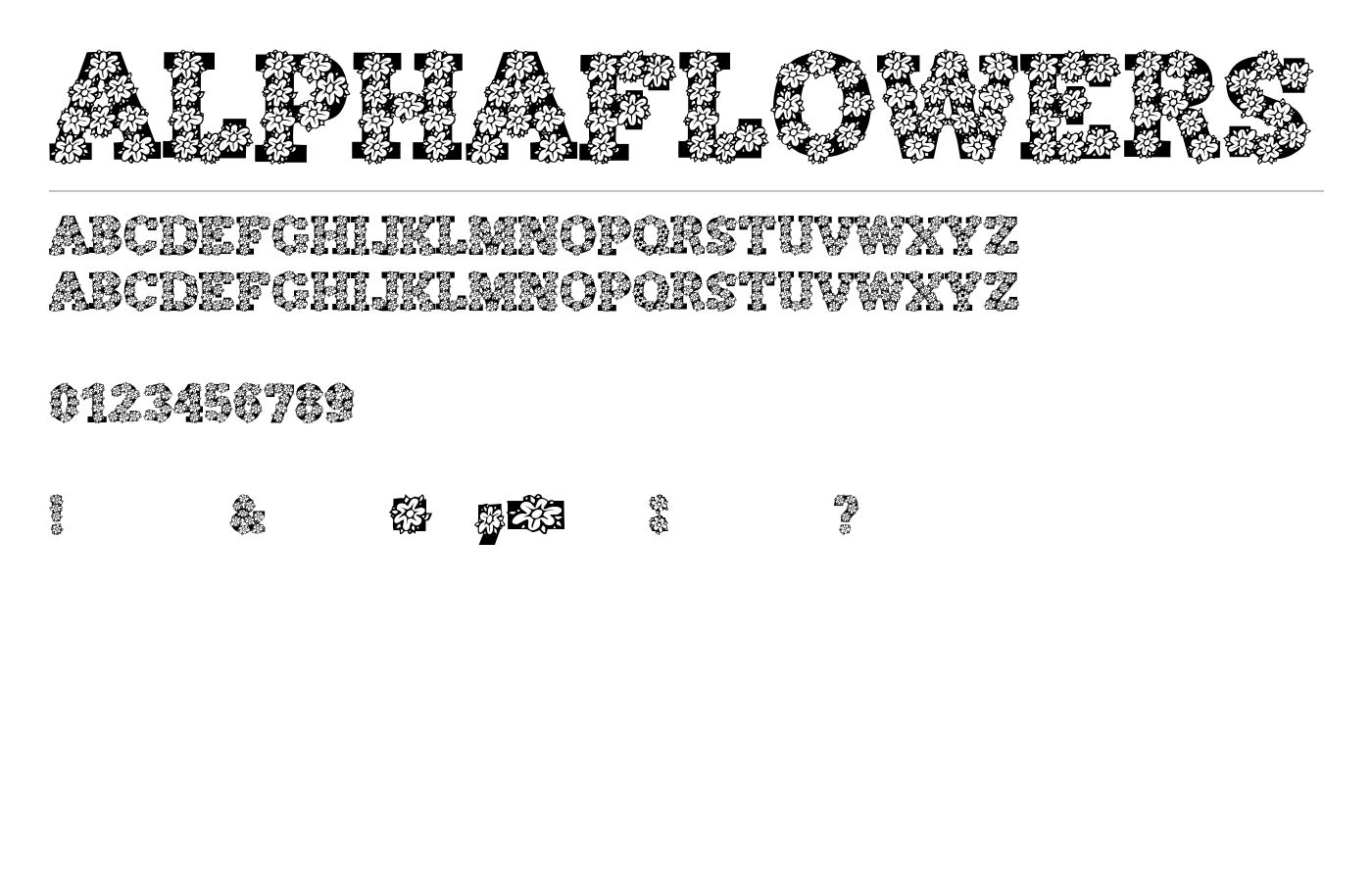
AlphaFlowers Font is a bold, decorative display typeface filled with charming floral motifs that create a playful and whimsical vibe. Its chunky letterforms and dense flower patterns make it perfect for eye-catching headlines, creative branding, and fun packaging designs, especially where a lively and nature-inspired aesthetic is desired. This font works best in large sizes where its intricate details can truly stand out and add a festive, joyful touch.
AlphaFlowers Font
About AlphaFlowers Font